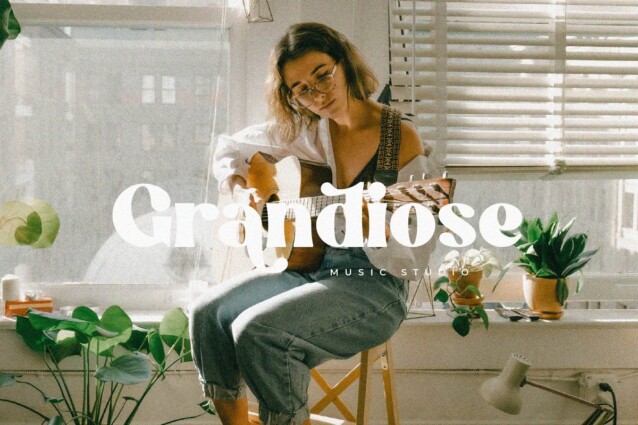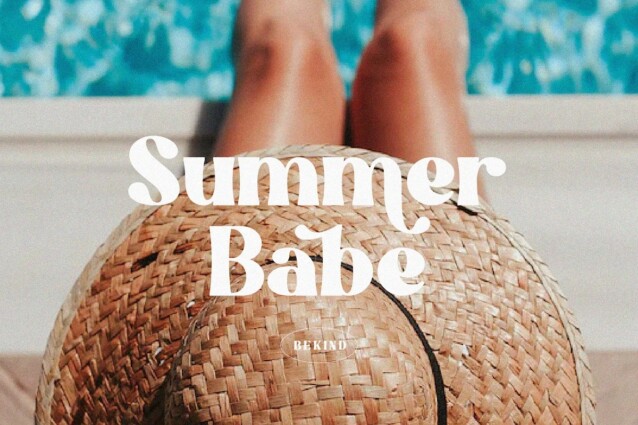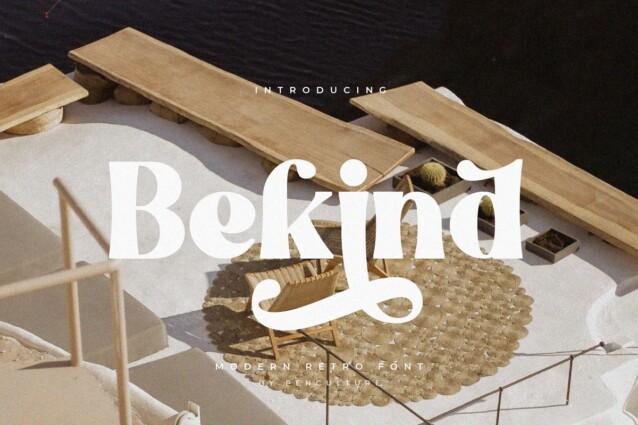
Bekind Font is a stylish serif font inspired by old Renaissance style with a touch of modernity. It looks amazing at display sizes and is easily readable in text size. Bekind is a modern & retro serif that perfect for branding, logo design, embroidery project, cricut, and many others. This font come with awesome uppercase and lowercase, number and punctuation, and lovely alternate.